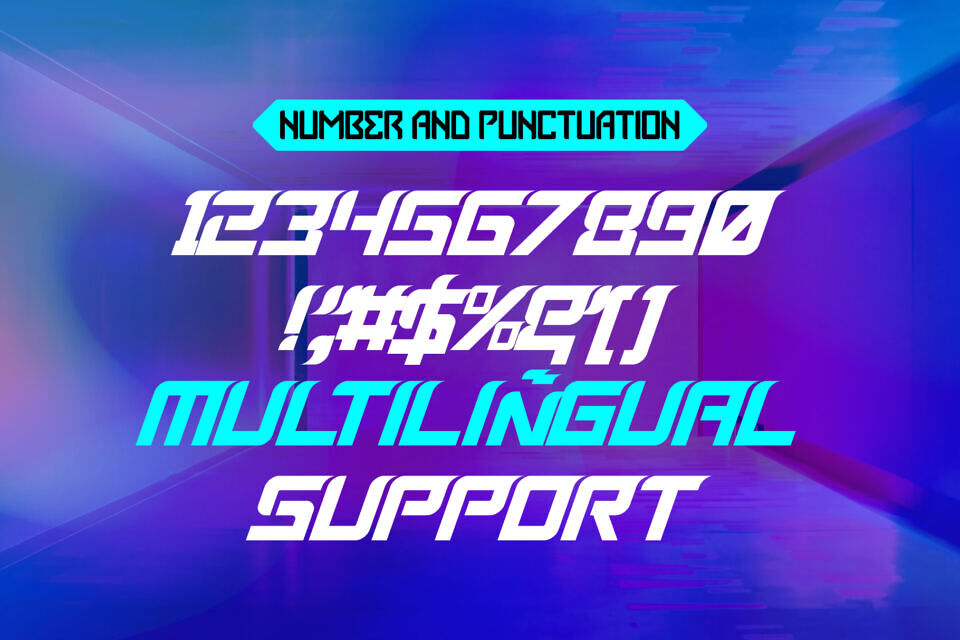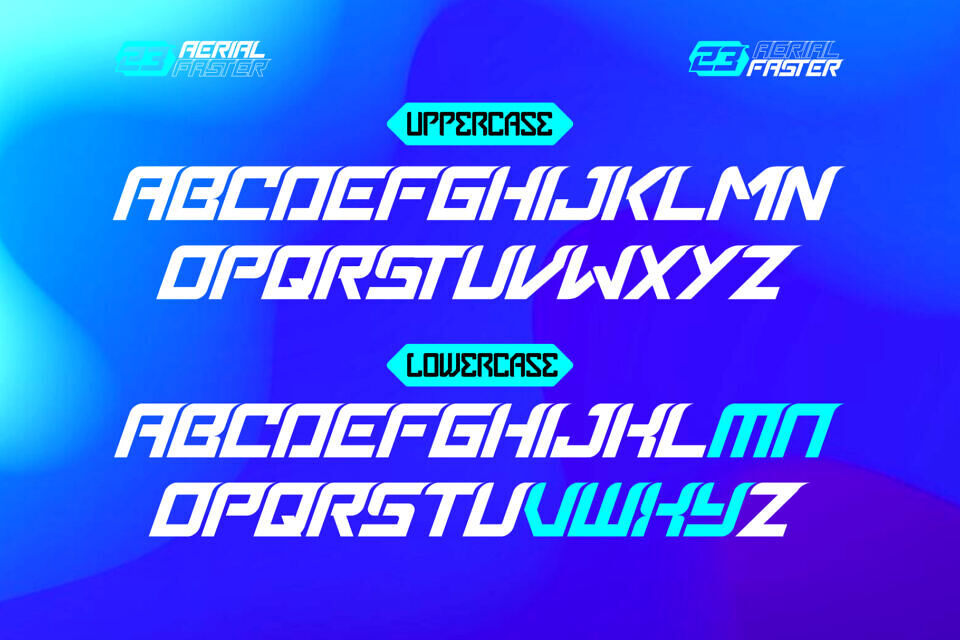
Aerial Faster Font
Aerial Faster is a Racing Display Font built to express adrenaline, performance, and futuristic energy through typography. Designed for speed-themed branding, esports, automotive posters, and racing event visuals, this racing display font brings motion and intensity to every letterform.
Its extended proportions, sharp angles, and aerodynamic shapes make Aerial Faster stand out in bold compositions. Whether you’re working on dynamic branding, digital campaigns, or modern sports design, this font ensures your message crosses the finish line in style.